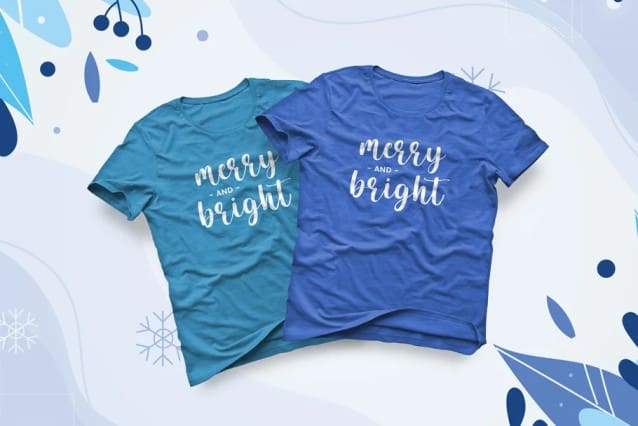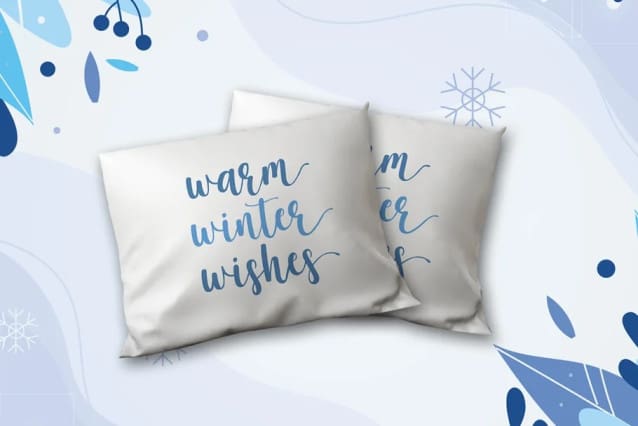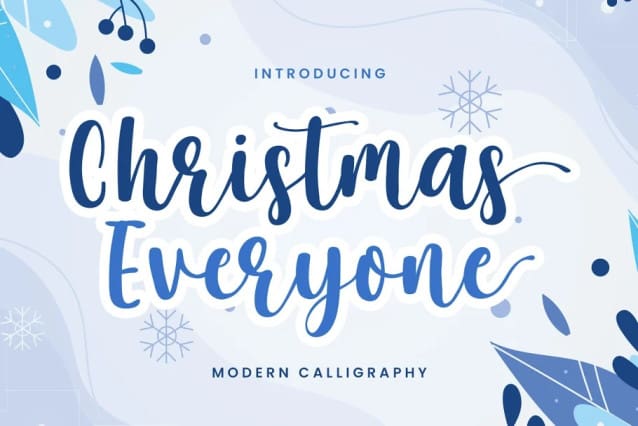
Christmas Everyone Font
Christmas Everyone Font is a beautiful and modern calligraphy font. It embodies playfulness and authenticity and is the perfect choice for any children activity or christmas project. this font is PUA encoded, which means you can access all of the glyphs and swashes with ease!
This font is suitable for use on christmas design, book, logos, magazines, quotes, birthday card, watermarks, invitations.